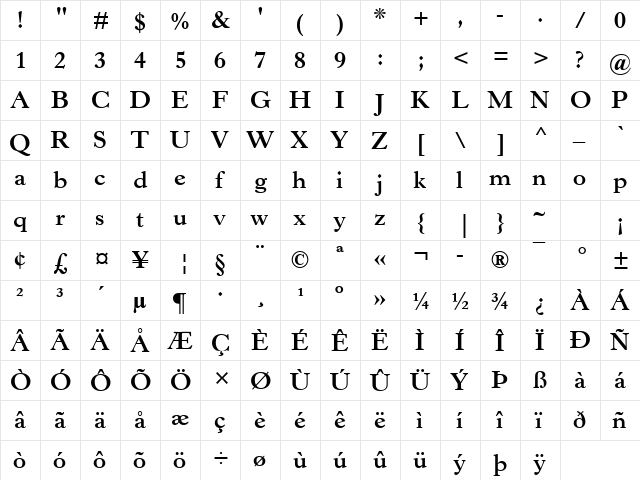
Horley OS MT Bold
| Foundry | Agfa Monotype Corporation |
Design Context for Horley OS MT Typeface
Horley OS MT is a composed and adaptable typeface that performs quietly and consistently across a wide range of design contexts. The heavy weight commands attention and anchors typographic hierarchies.